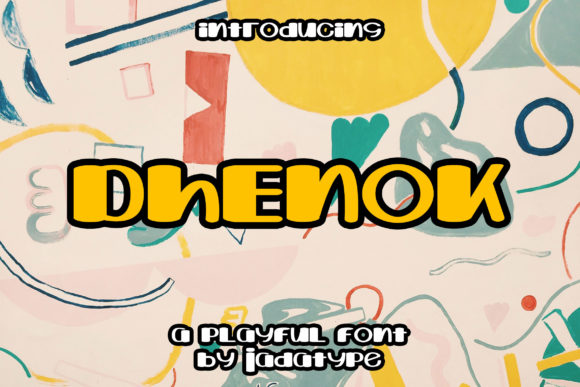
Journey into the world of Dhenok – a whimsical display font that brings a smile to your face. Its friendly, rounded edges and playful style ignite an atmosphere of joy and charm in any creative project.
Crafted with meticulous attention to detail, each letterform in Dhenok is a visual delight. Its bold strokes portray a sense of solidity and stability, while the open counters and playful curves add a touch of lightness and whimsy. The result is a font that exudes personality and charm, making it the perfect choice for designs that aim to capture the hearts of young and old alike.
Dhenok's versatility knows no bounds. It shines as a captivating headline font, adding a touch of whimsy to posters, book covers, and social media graphics. Its playful nature makes it an ideal choice for children's books, games, and toys, bringing life to characters and stories with its joyful presence.
Embrace the magic of Dhenok and let your creativity soar. Its friendly demeanor invites connection and sparks imagination, making it the perfect choice for any project that seeks to spread joy and positivity.
With Dhenok by your side, every design becomes an opportunity to create something truly special. Its cheerful disposition will infuse your work with a sense of wonder and delight, leaving a lasting impression on all who encounter it.